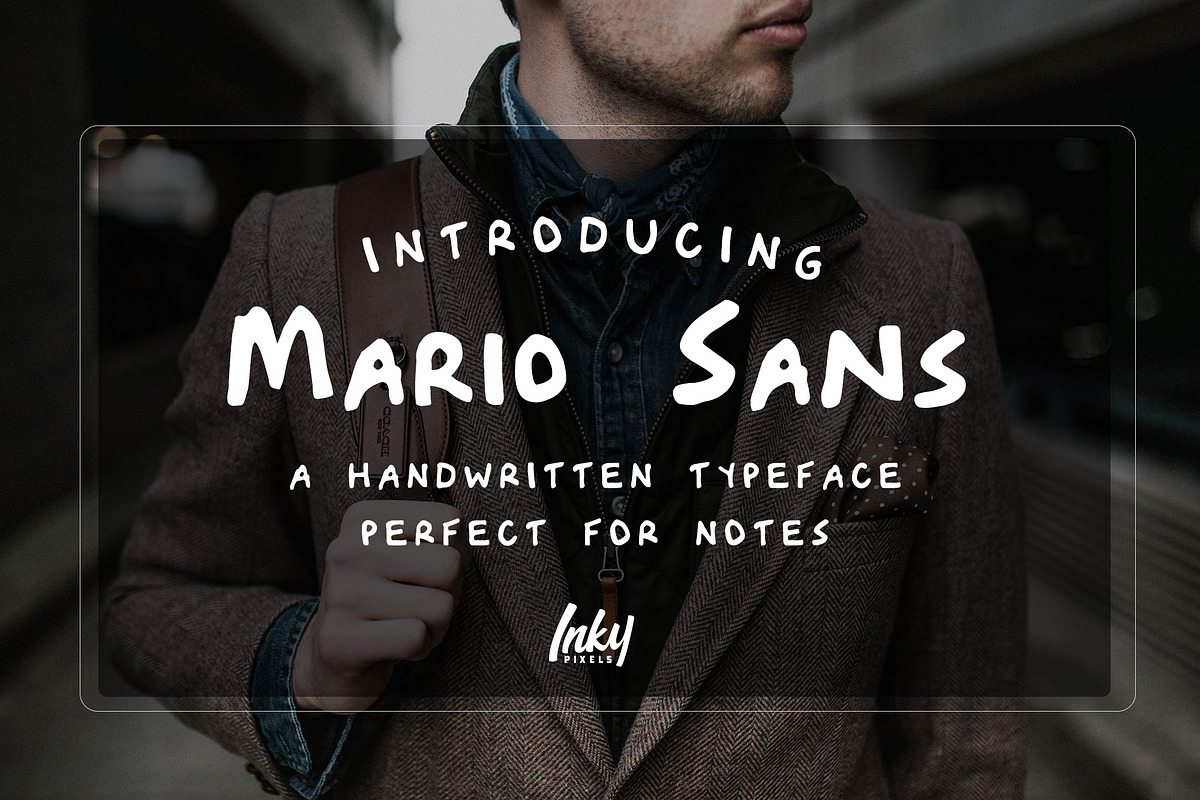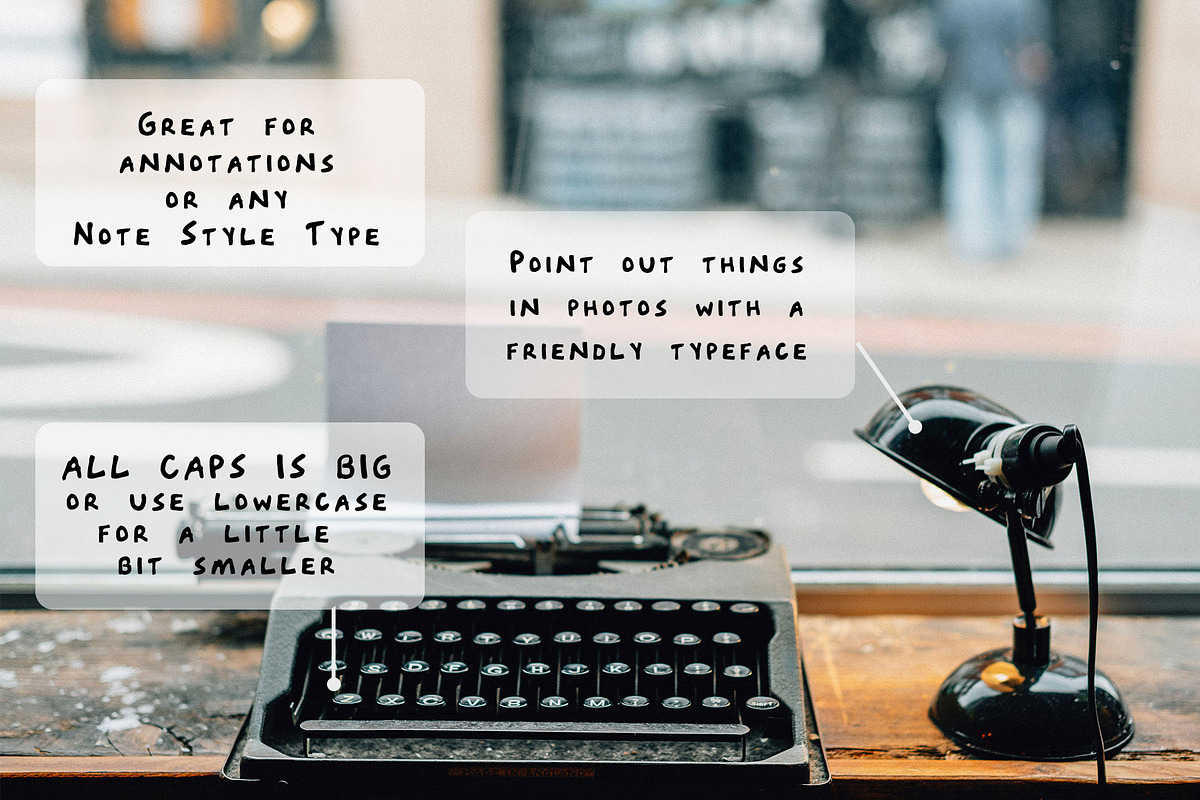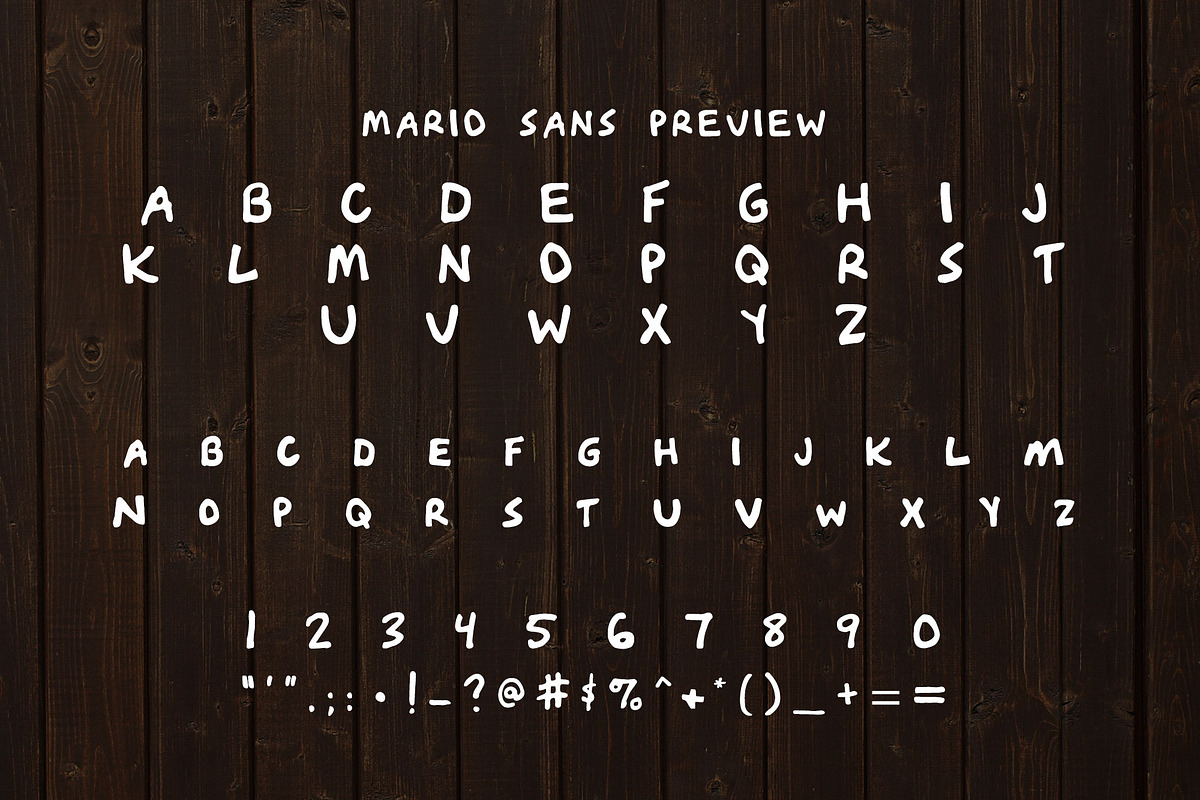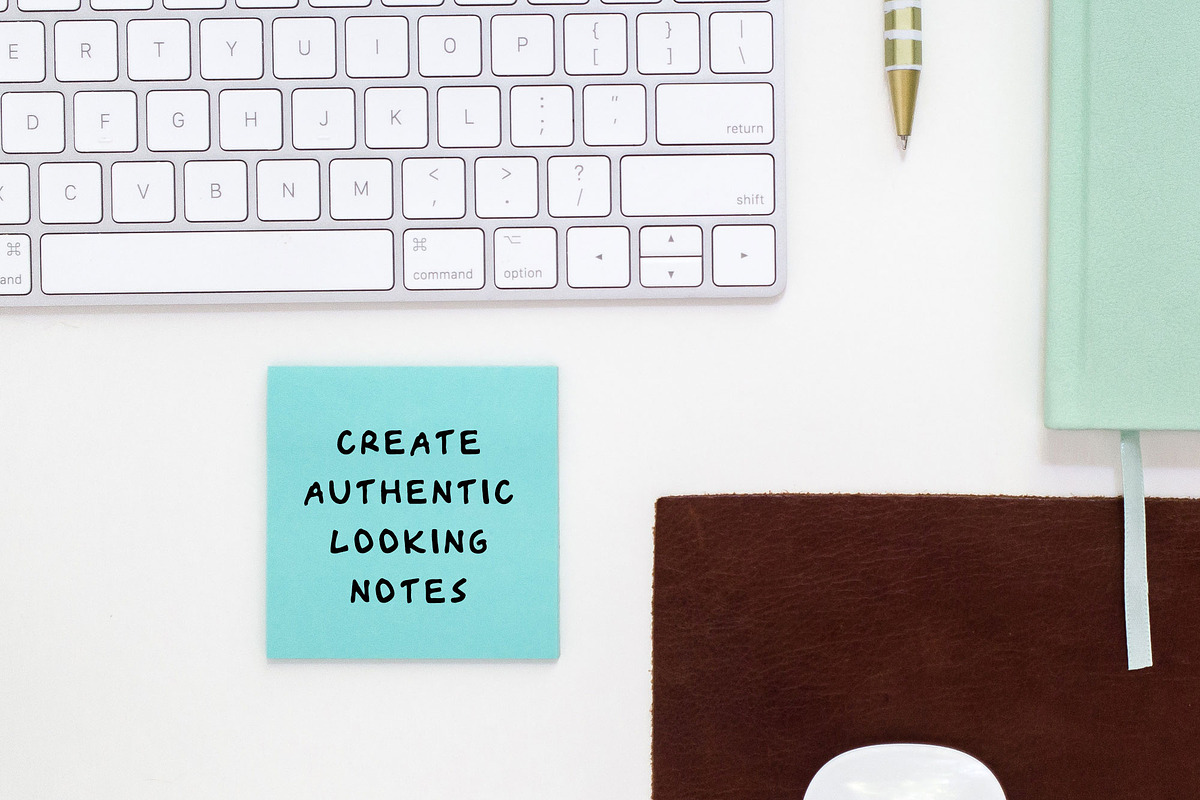
Mario Sans Font
Introducing my very first font - Mario Sans. Built on actual handwriting of a friend, Mario Sans is perfect for note-style and whiteboard type designs, Mario Sans has tidy all-caps letters, as if someone were taking notes with a felt-tip pen or whiteboard marker.